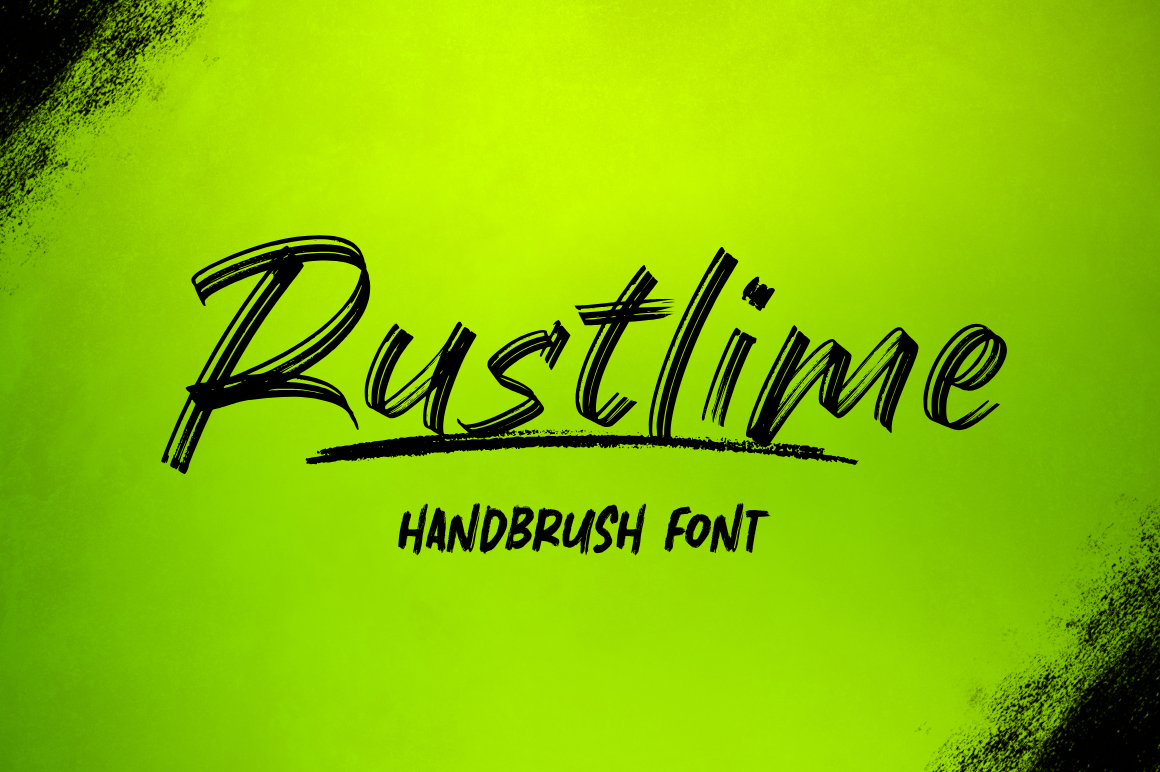
Rustlime Brush Font
Rustlime Brush is a bold and energetic handbrush font that adds a raw, artistic vibe to your designs. Its textured strokes and dynamic style make it perfect for posters, logos, packaging, and anything that needs a bold statement. Let Rustlime Brush bring your creative ideas to life!